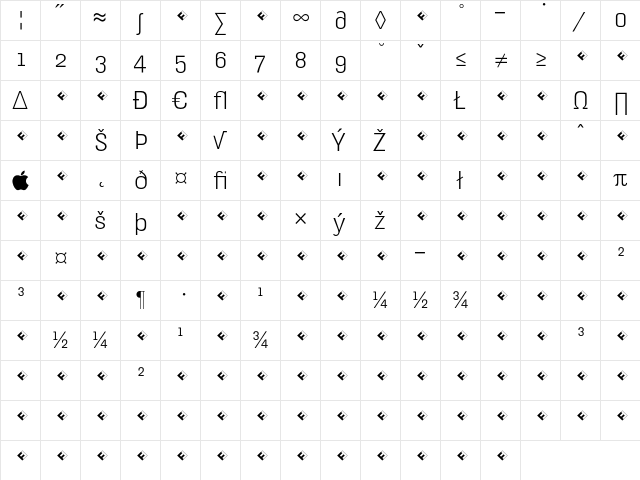
HydraText-LightExpert Regular
Design Context for HydraText-LightExpert Typeface
HydraText-LightExpert is a composed and adaptable typeface that performs quietly and consistently across a wide range of design contexts. The delicate stroke weight brings airiness and refinement to layouts.